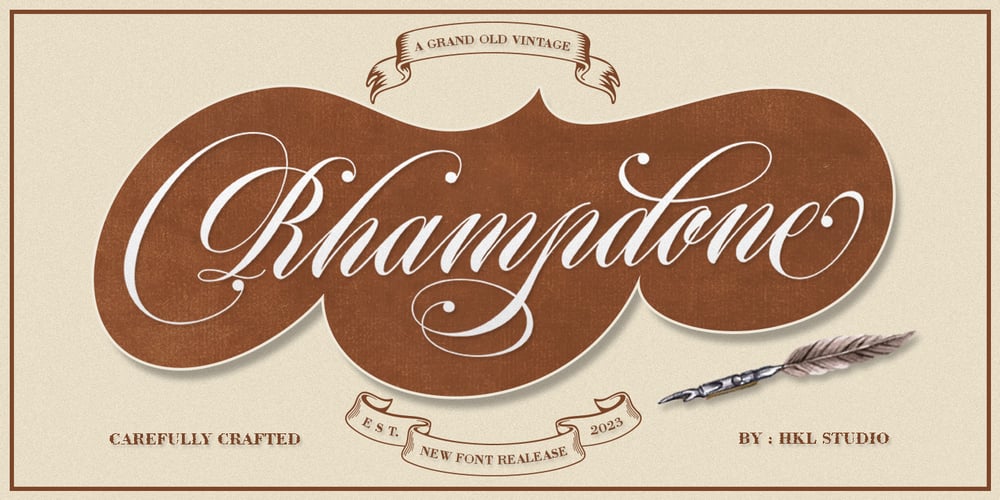
Rhampdone Script Font Family was designed by T Haikal Budillah and published by HKL Studio. Rhampdone Script contains 1 styles and family package options. Rhampdone ScriptIs a calligraphy Vintage script font that comes with beautiful alternate characters. copper plate mix calligraphy with handlettering style. Designed to convey stylish elegance. Rhampdone attracts like a typeface that is smooth, clean, feminine, sensual, glamorous, simple and very easy to read.Rhampdone Script comes with a Clean and Aged version, beautiful upper and lower case, binding and loved by many finishes. It has Multilingual support (Western European characters) and works with the following languages: English, Danish, Dutch, Estonian, Finnish, French, German, Hungarian, Icelandic, Italian, Norwegian, Polish, Portuguese, Spanish, Swedish.In my example I show how this script can be used. It’s perfect for logos, wedding invitations, alcohol labels, romantic cards, and more.